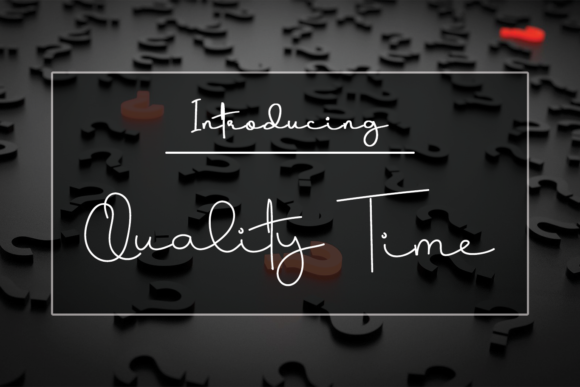
Prepare to be captivated by Quality Time Font, a masterpiece crafted by erik studio and meticulously designed to leave an everlasting impression. Immerse yourself in the charm of this script font, a visual symphony of flowing curves and elegant strokes that exudes timeless sophistication.
With Quality Time Font, the possibilities are limitless. Weave your words into breathtaking logos that command attention and convey your brand's unique story. Transform your branding into a work of art, where every element harmonizes perfectly, leaving an indelible mark on your audience's minds.
Craft exquisite invitations that capture the essence of your special occasion. From weddings to anniversaries, Quality Time Font will add an air of grace and refinement, ensuring your invitations are cherished keepsakes. Elevate your stationery with a touch of timeless elegance, transforming simple letters into personal works of art.
Unleash your creativity in wedding designs, allowing Quality Time Font to guide your vision. Its delicate lines and graceful flourishes will weave a tapestry of love and romance, capturing the magic of your special day in every detail.
Make your social media posts shine with the allure of Quality Time Font. Its eye-catching presence will draw followers in, captivating them with its beauty and leaving them eager for more.
Welcome to the world of Quality Time Font, where artistry meets versatility. It's a script font that transcends boundaries, seamlessly adapting to any creative endeavor you undertake. Its finely tuned characters will elevate your designs, adding a touch of magic to every project you touch.
Discover the magic of Quality Time Font today and embark on a creative journey where beauty and functionality intertwine. Let your imagination soar and experience the transformative power of this exquisite font.